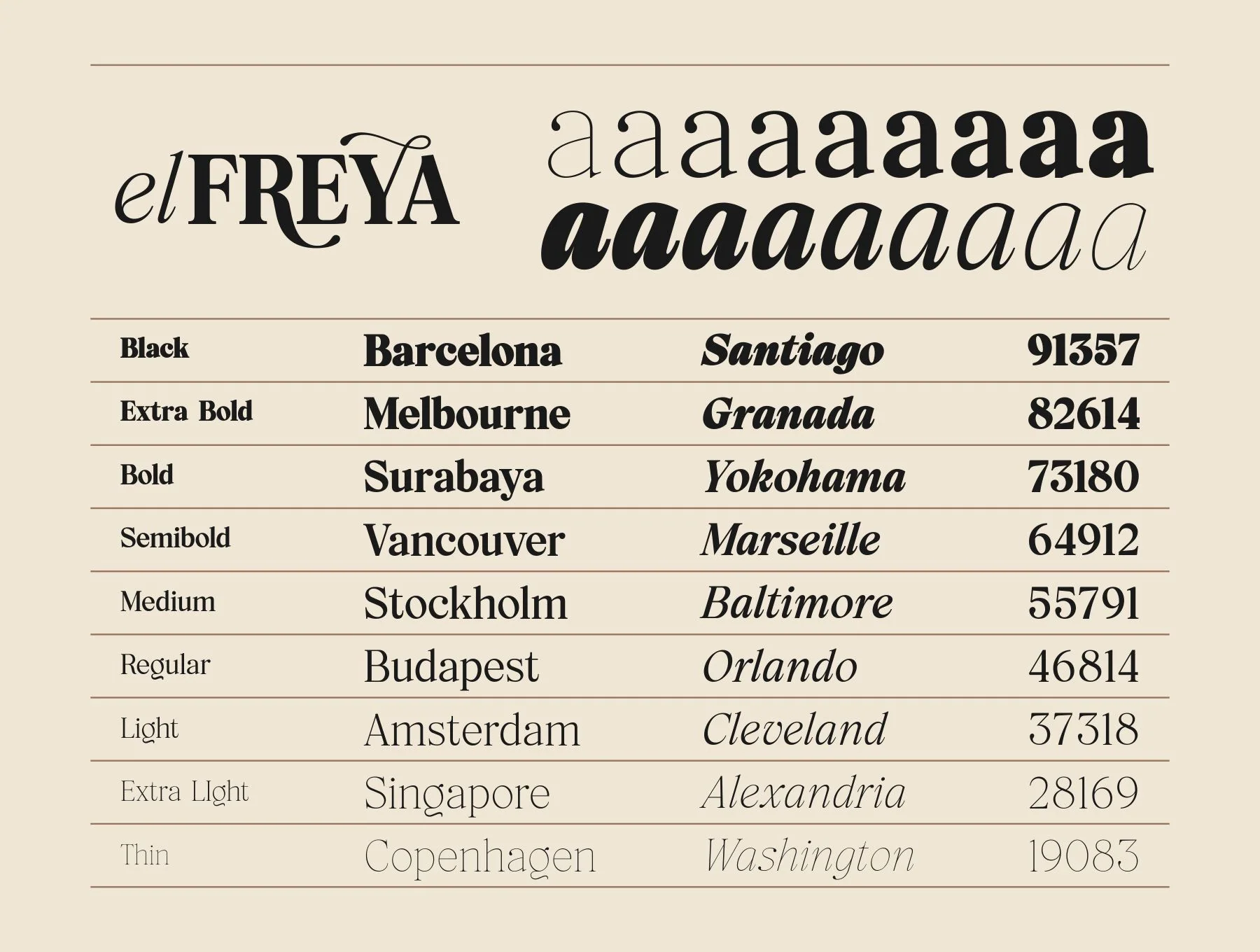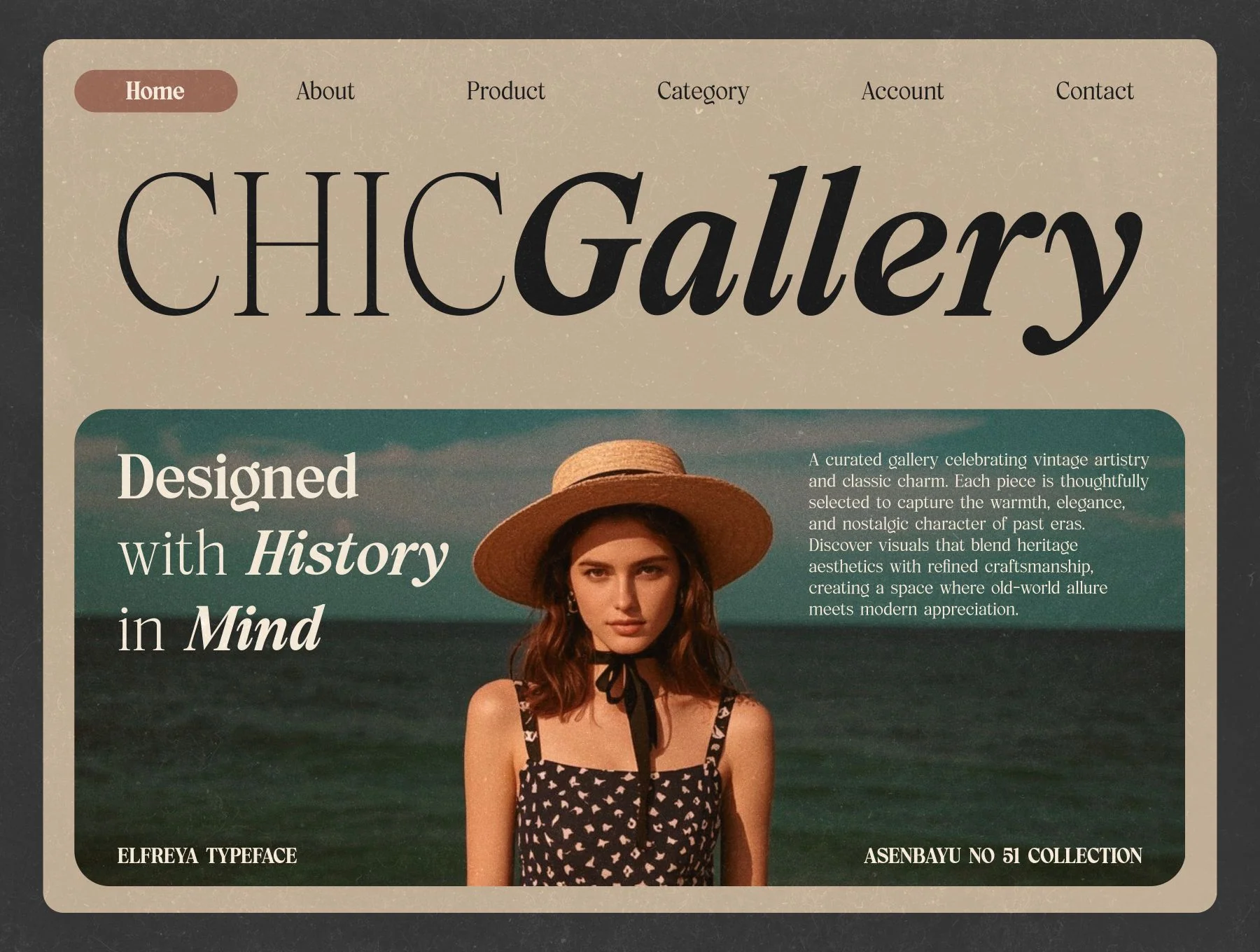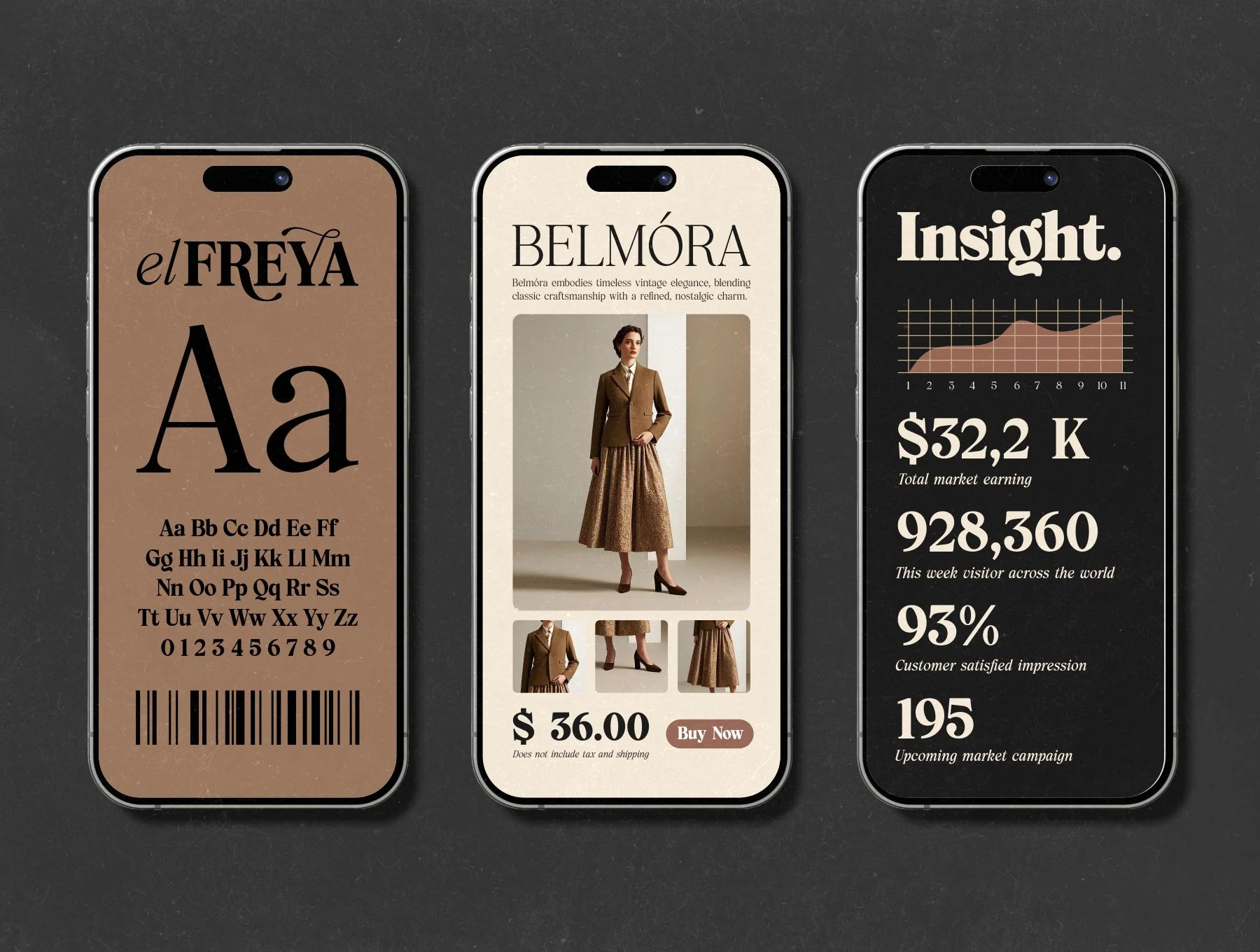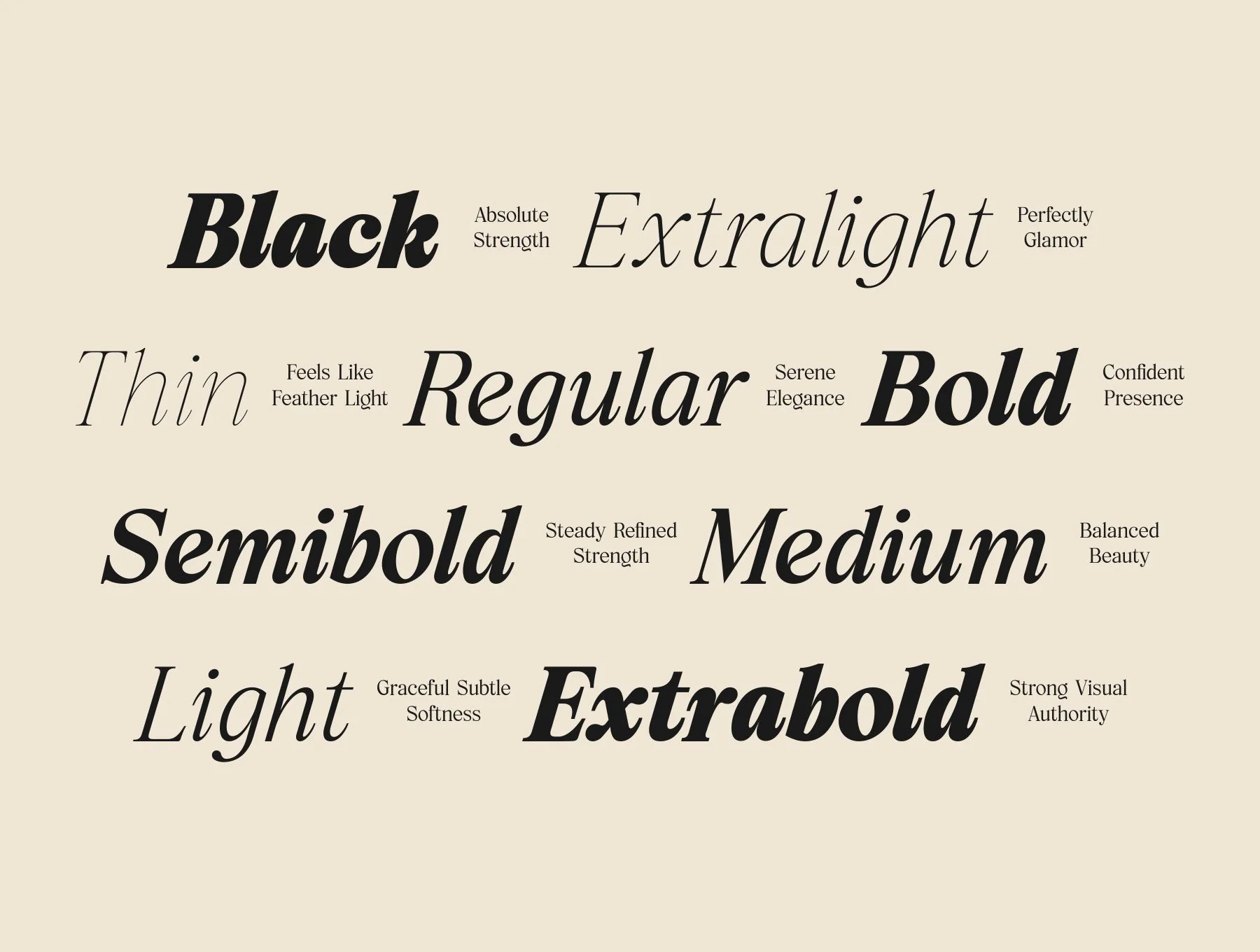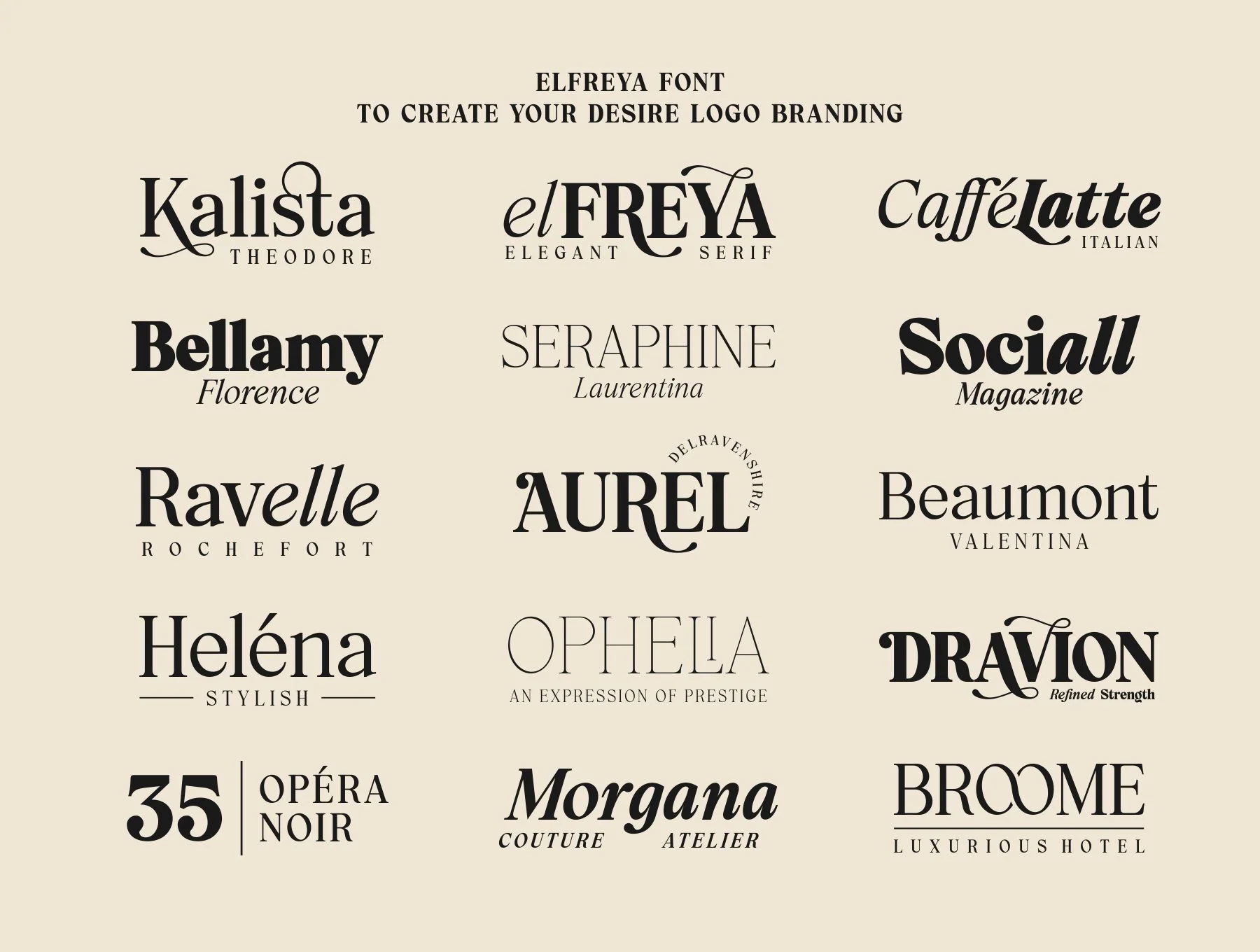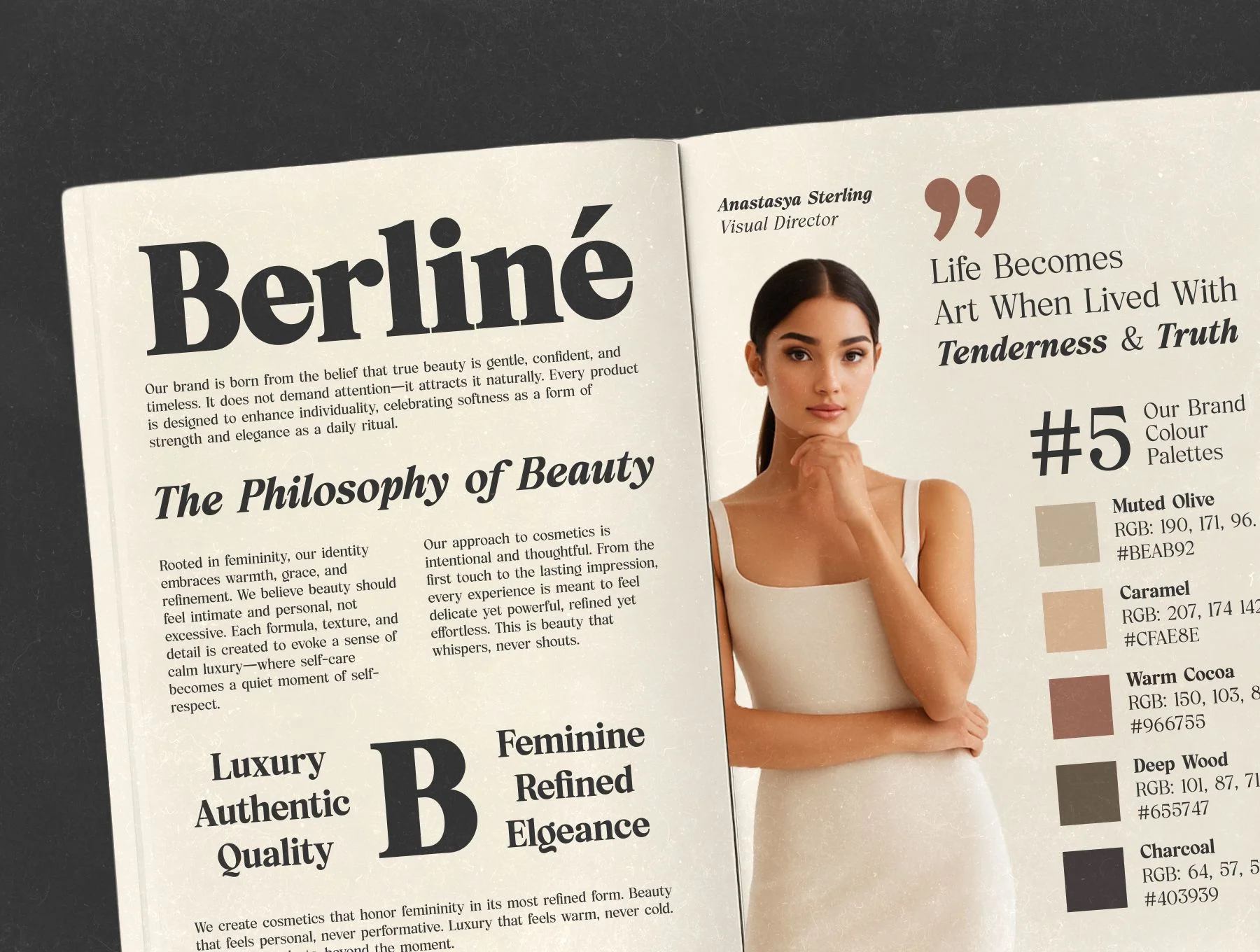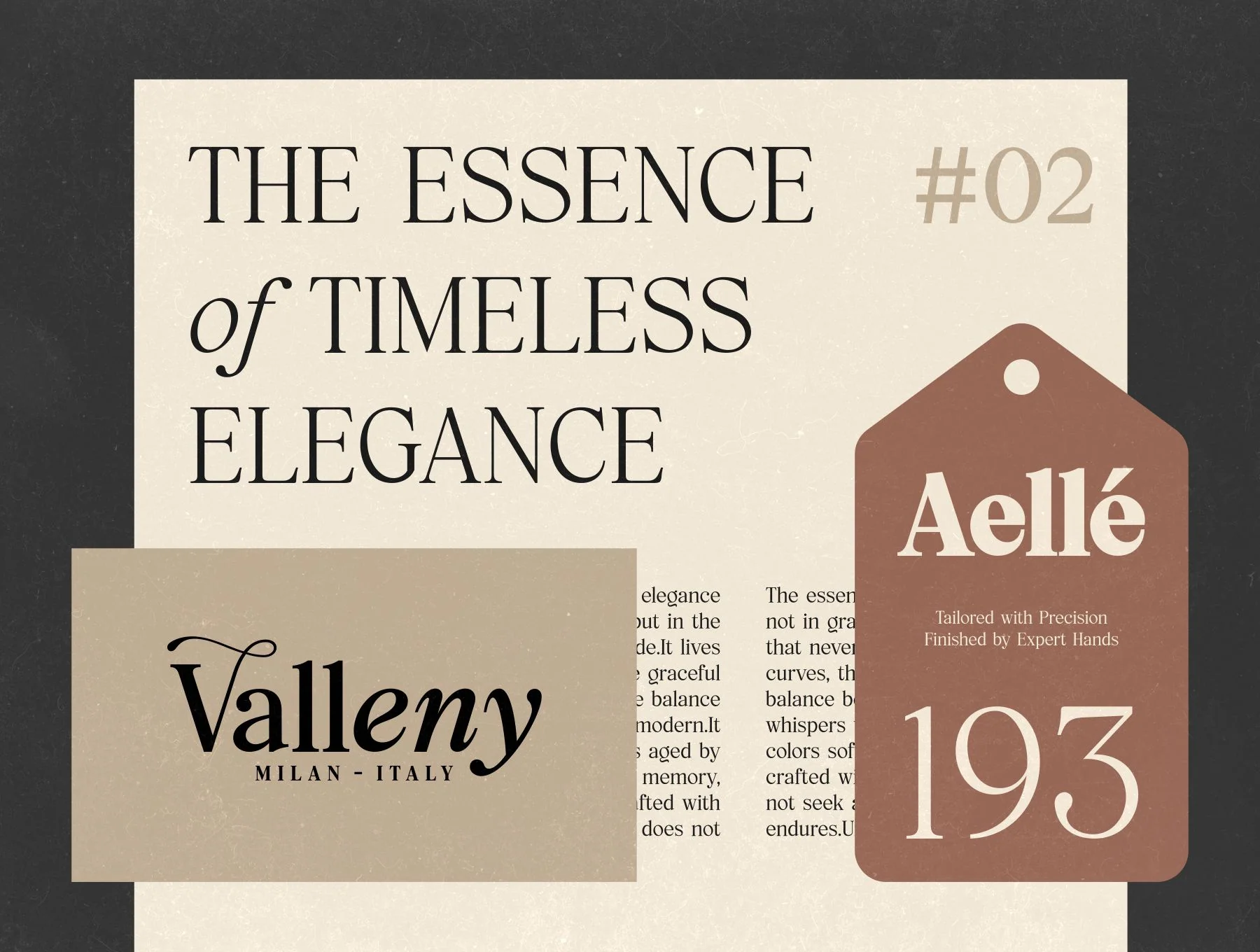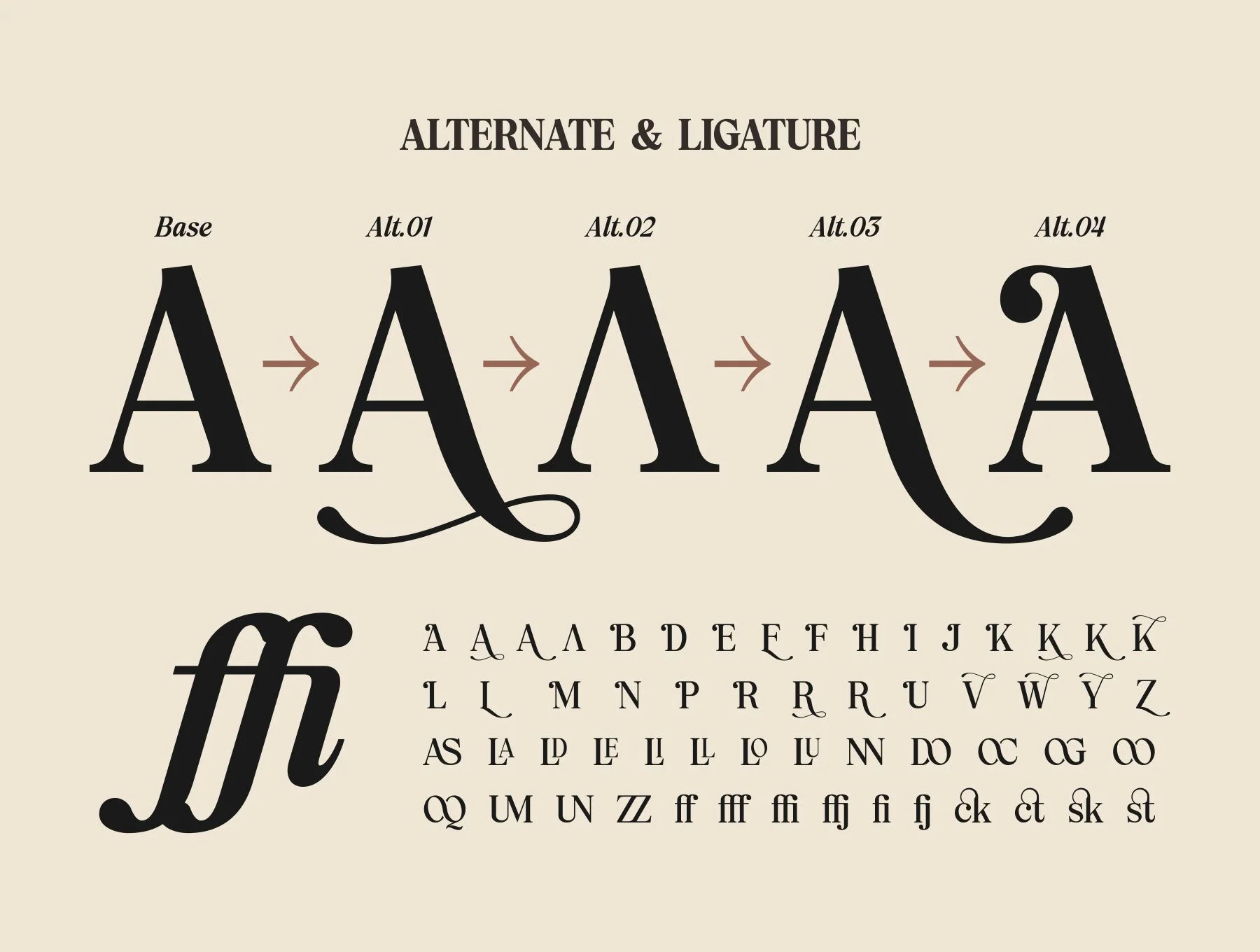
Elfreya Font Family
Elfreya Refined Vintage Serif for Branding, 18 Styles
Stylistic alternates and ligatures
Elfreya is a refined vintage serif blending classic elegance and enduring appeal. With 18 fonts across 9 weights from Thin to Black, plus italics, it suits branding, logos, editorials, packaging, invitations, fashion, luxury work, posters, and digital layouts. Includes 72 OTF, TTF, WOFF, WOFF2 files, ASCII glyphs, alternates, ligatures, symbols, punctuation, and multilingual support.